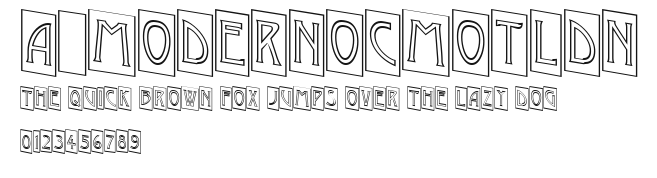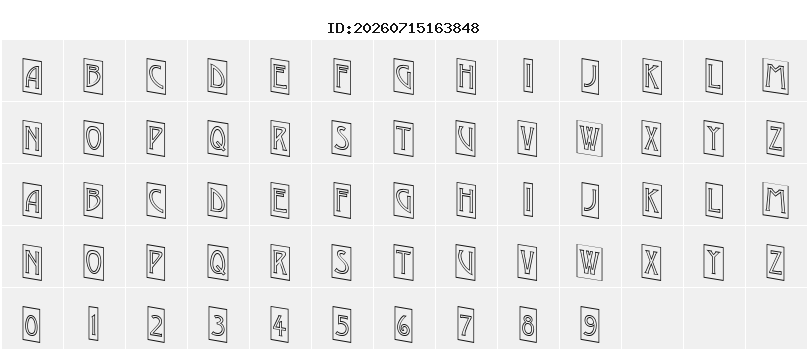
• Font Name: a_ModernoCmOtlDn
• Full Font Name: a_ModernoCmOtlDn
About a_ModernoCmOtlDn.ttf
a_ModernoCmOtlDn.ttf is a modern, elegant sans-serif font designed for ultimate readability and visual harmony. Perfect for branding, headlines, web design, and print materials.